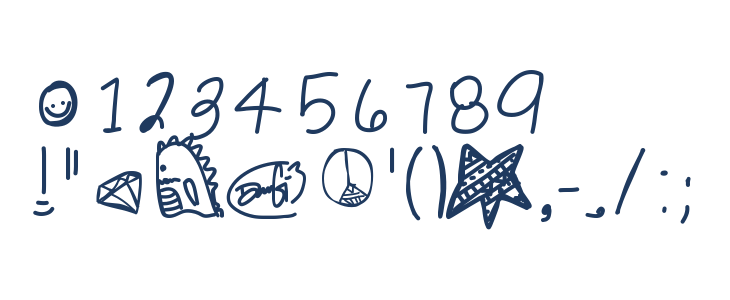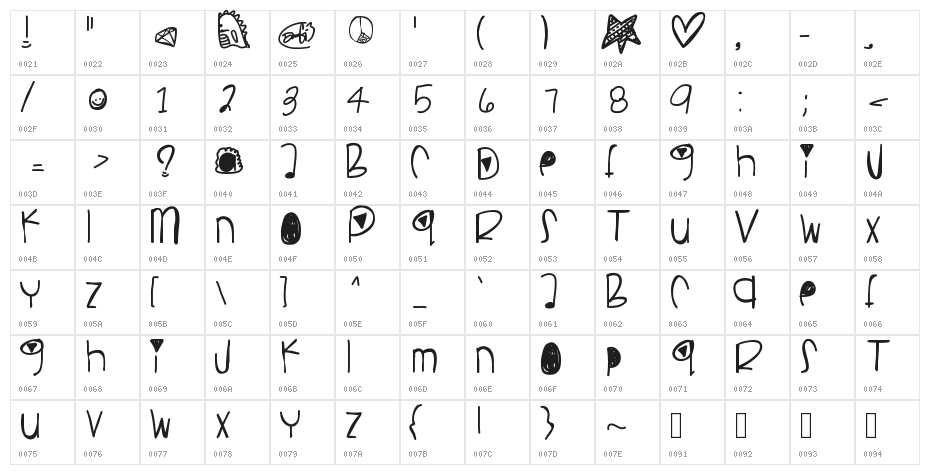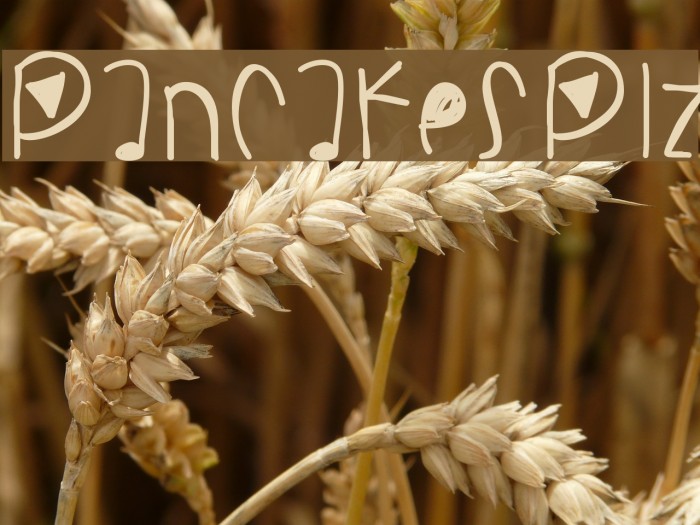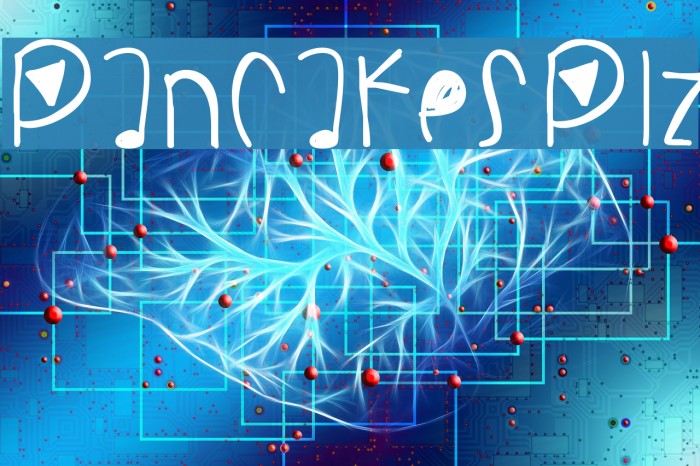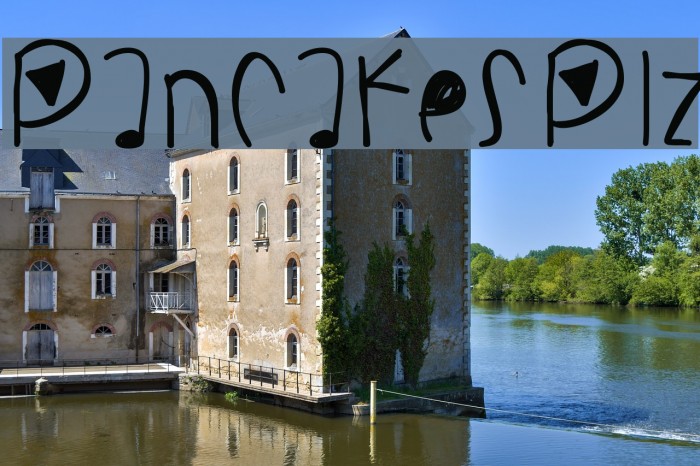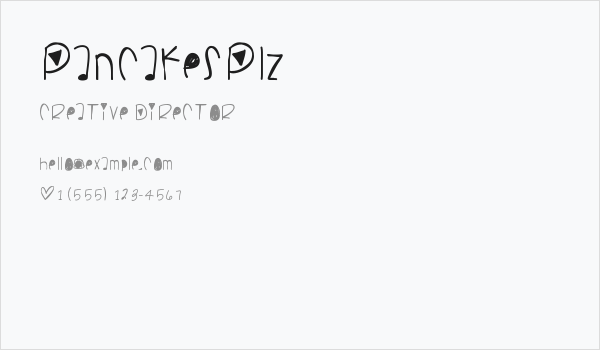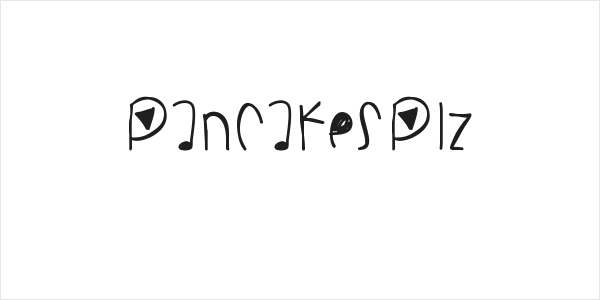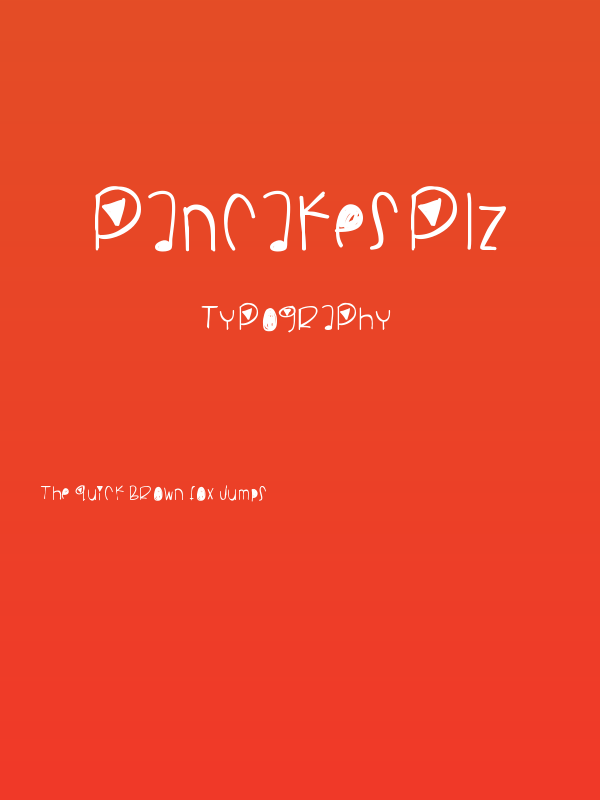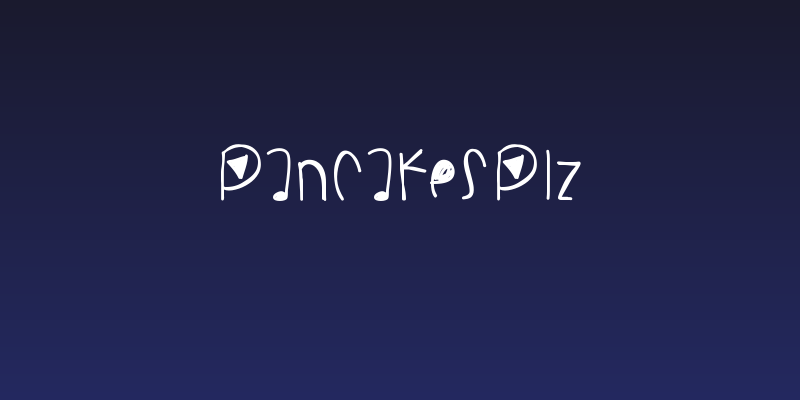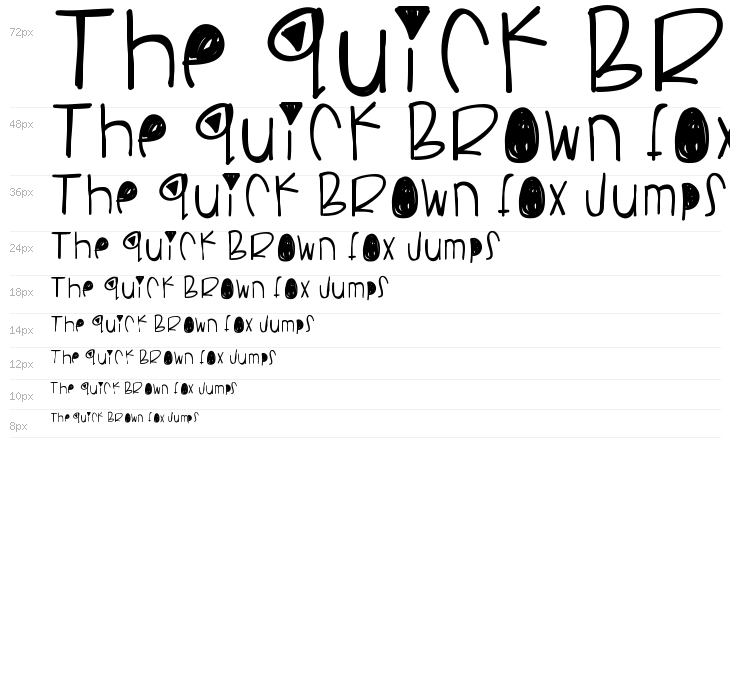
PancakesPlz Font
PancakesPlz Description
This playful and whimsical font features a unique, hand-drawn style with quirky, irregular shapes and a casual, artistic flair. The characters are bold and expressive, with varying stroke thicknesses that add to its charm. The uppercase and lowercase letters maintain a consistent style, while the numbers and special characters complement the overall design. The font's distinctive personality makes it ideal for creative projects that require a fun and informal touch.
| Proposed Projects | Perfect for children's books, playful branding, greeting cards, and creative posters. |